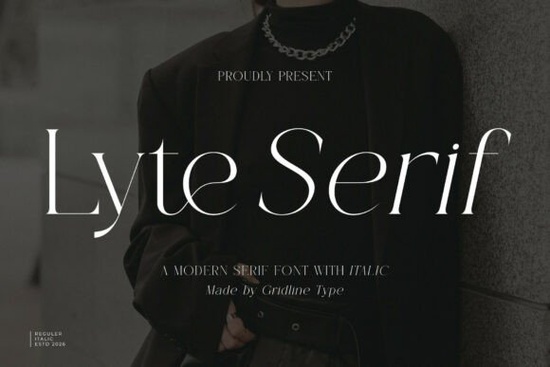
Lyte Serif Font is a versatile and elegant typeface that brings a touch of sophistication to any design project. Whether you're working on branding, editorial layouts, or packaging, this font offers a refined look that stands out. Its high contrast and fluid structure make it ideal for both digital and print applications. If you're looking for a font that combines modern geometry with traditional serif elements, Lyte Serif could be the perfect fit for your creative needs.
Designed with a focus on clarity and style, Lyte Serif features sharp, delicate serifs that add a sense of elegance without overwhelming the design. The font's slender horizontal crossbars and strong vertical stems create a balanced visual rhythm, making it easy to read while maintaining a luxurious feel. This makes it particularly well-suited for upscale brand identities, high-end publications, and premium product labels.
What Makes Lyte Serif Stand Out?
One of the standout qualities of Lyte Serif is its ability to blend contemporary design with classic typography. Unlike some more rigid serif fonts, Lyte Serif has a soft, elongated posture that feels both modern and timeless. This versatility allows it to fit into a wide range of design styles, from minimalist to luxurious.
The font’s high contrast between vertical and horizontal strokes adds a dynamic quality that draws the eye. This feature is especially useful when designing headlines or display text where readability and visual interest are important. At the same time, the font remains legible in smaller sizes, making it suitable for body text in certain contexts.
Best Uses for Lyte Serif Font
Lyte Serif is particularly effective in designs that require a sense of refinement and professionalism. It works well for corporate mastheads, luxury branding, and editorial layouts where a clean yet stylish appearance is essential. The font’s elongated structure also makes it a good choice for social media graphics, where space is limited but visual appeal is important.
- Try using Lyte Serif in headings or logos for a polished look
- Pair it with a simpler font for balance in your designs